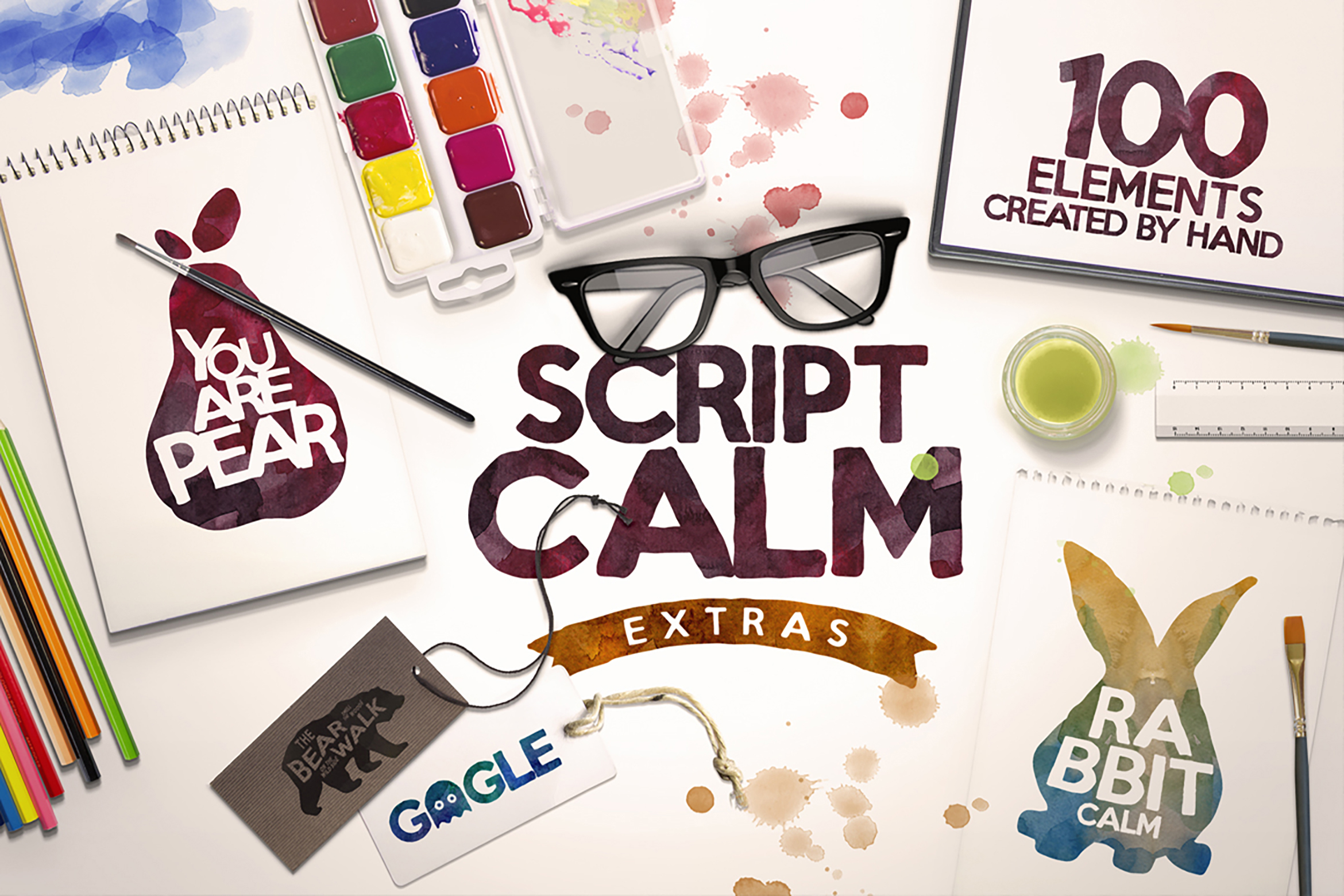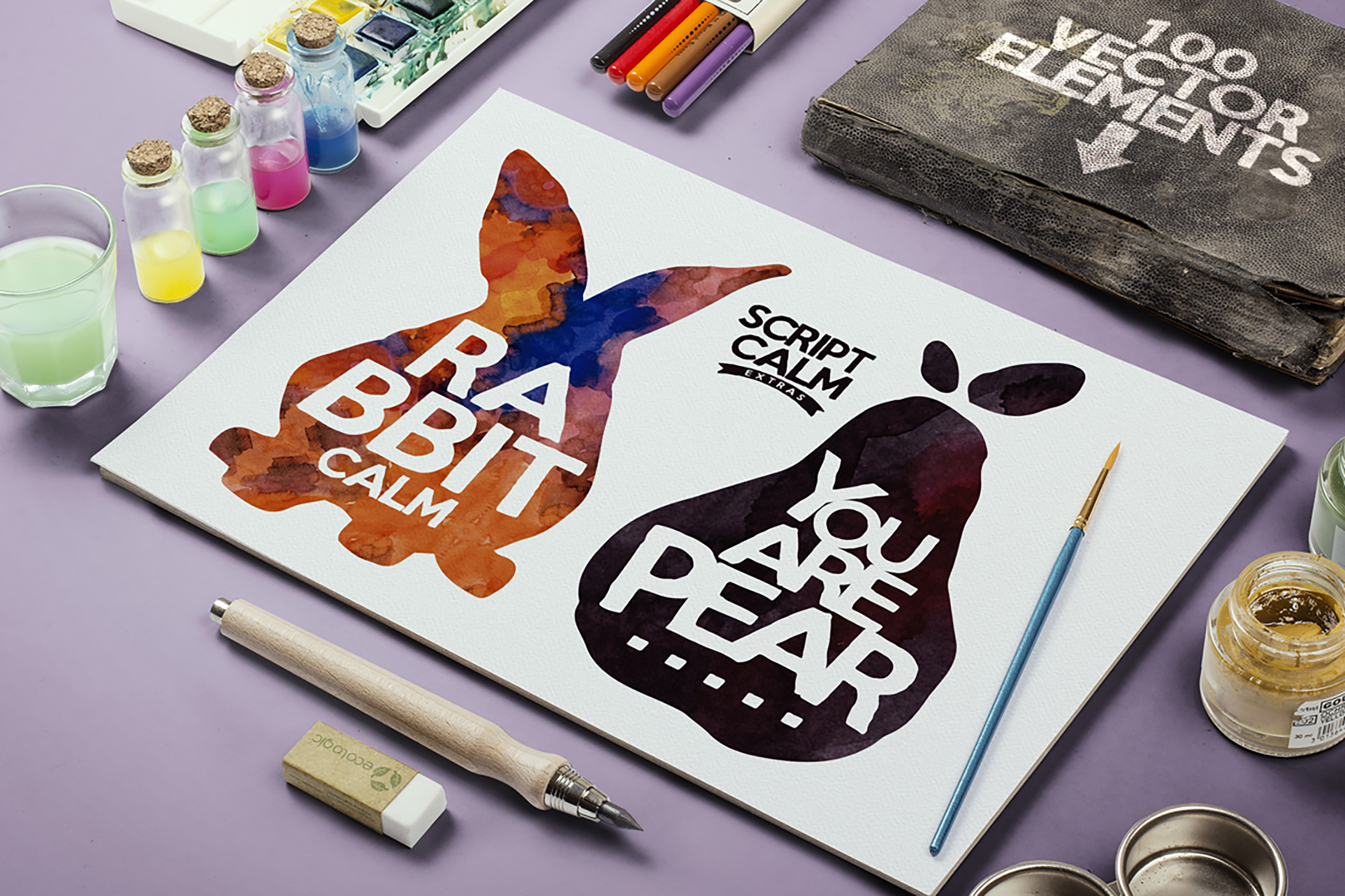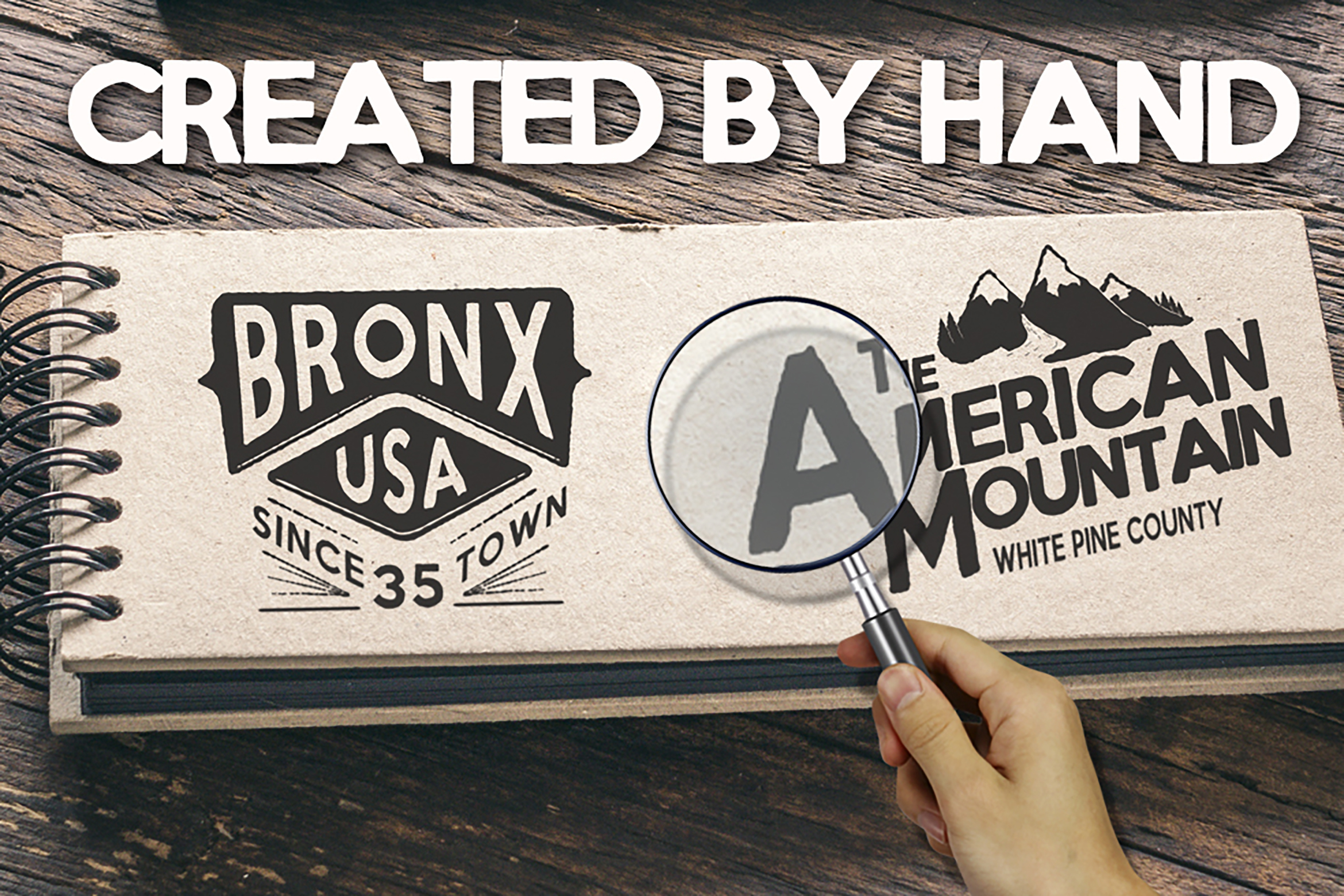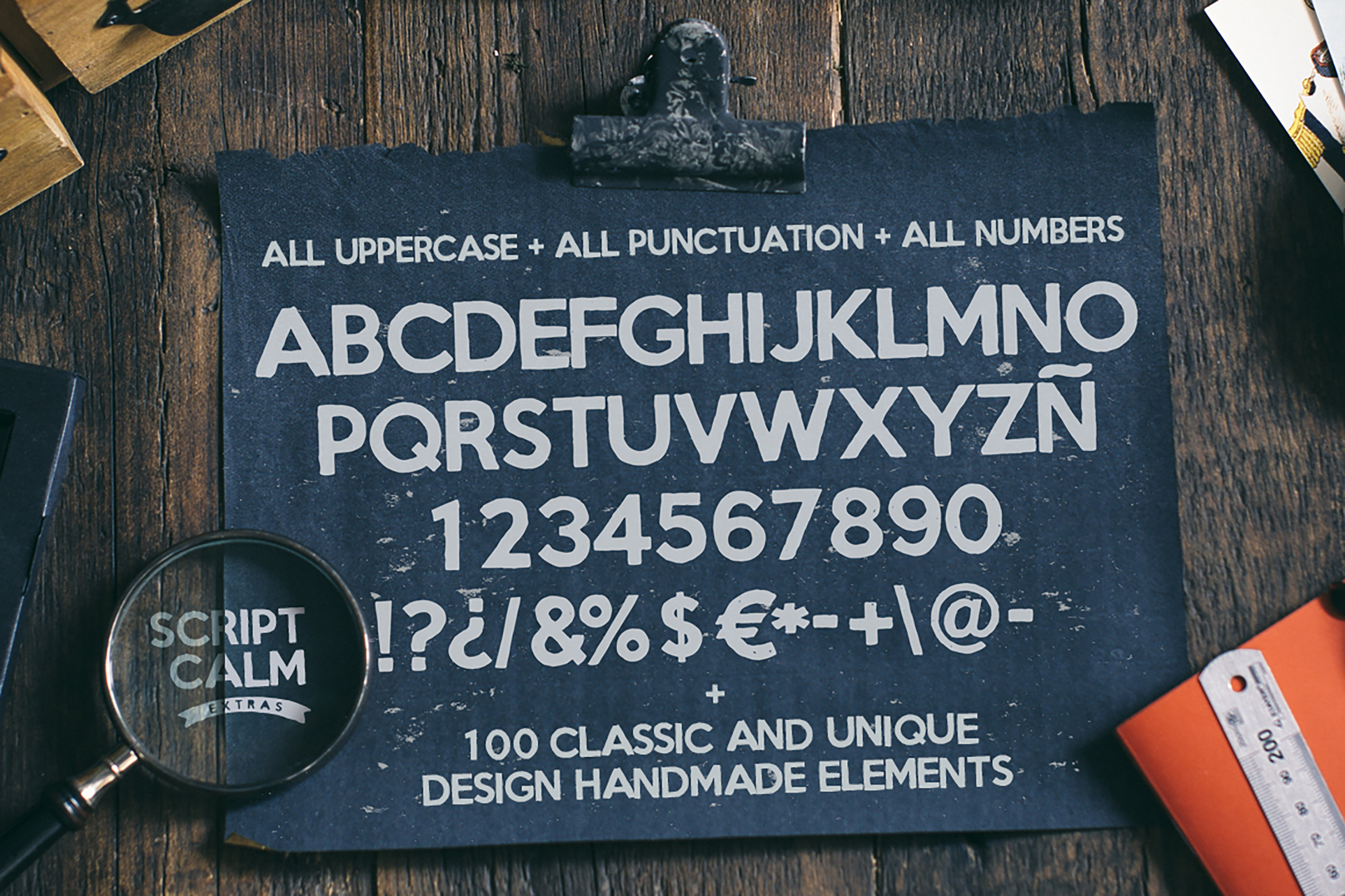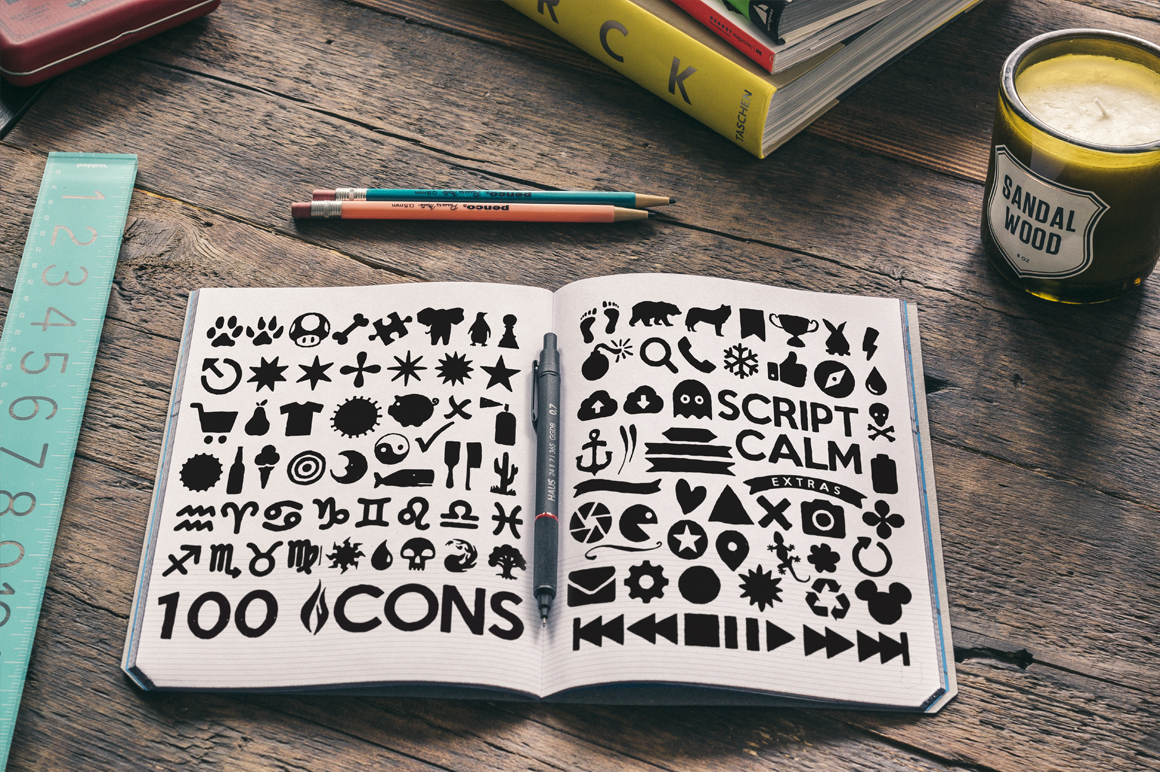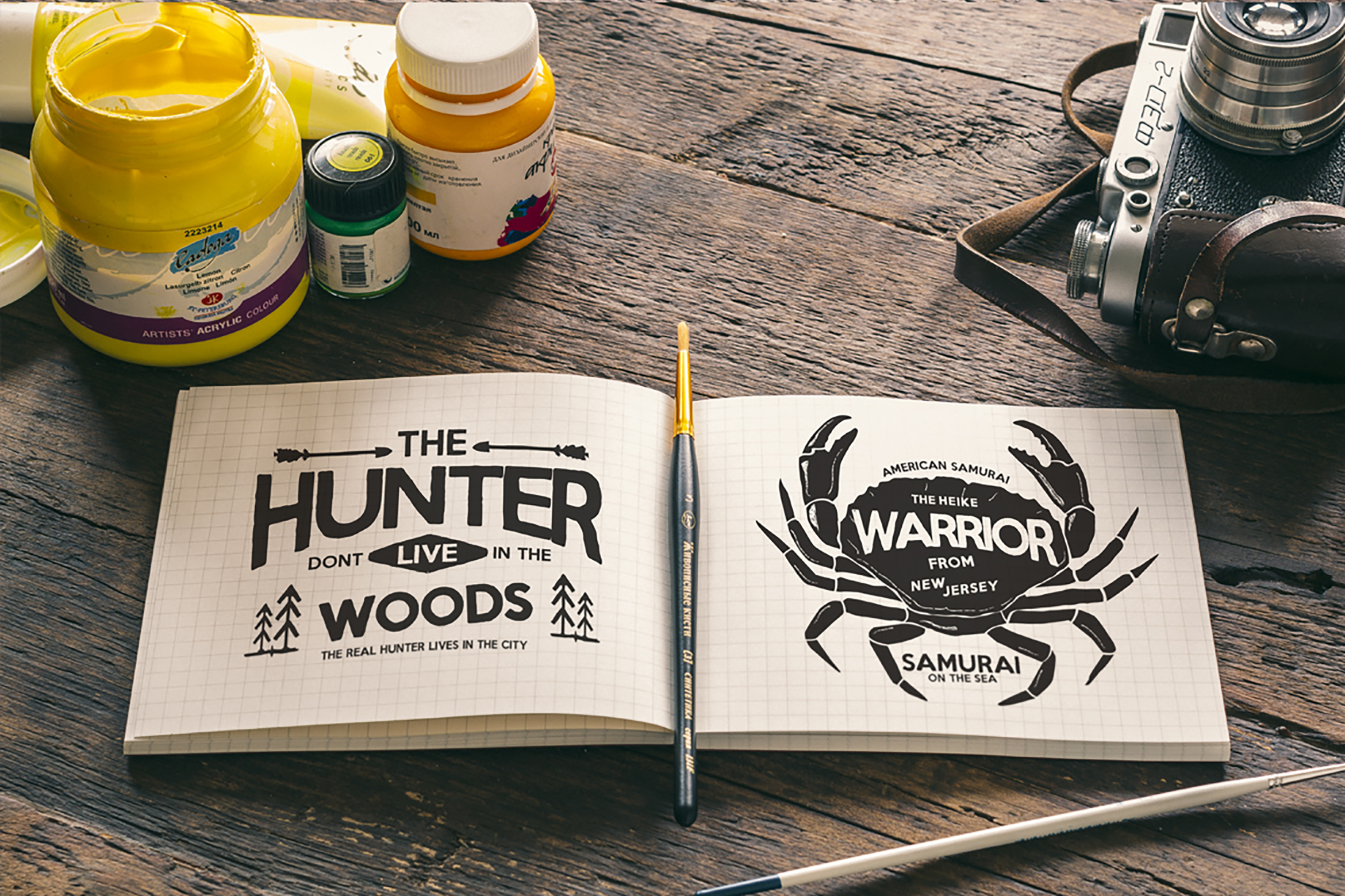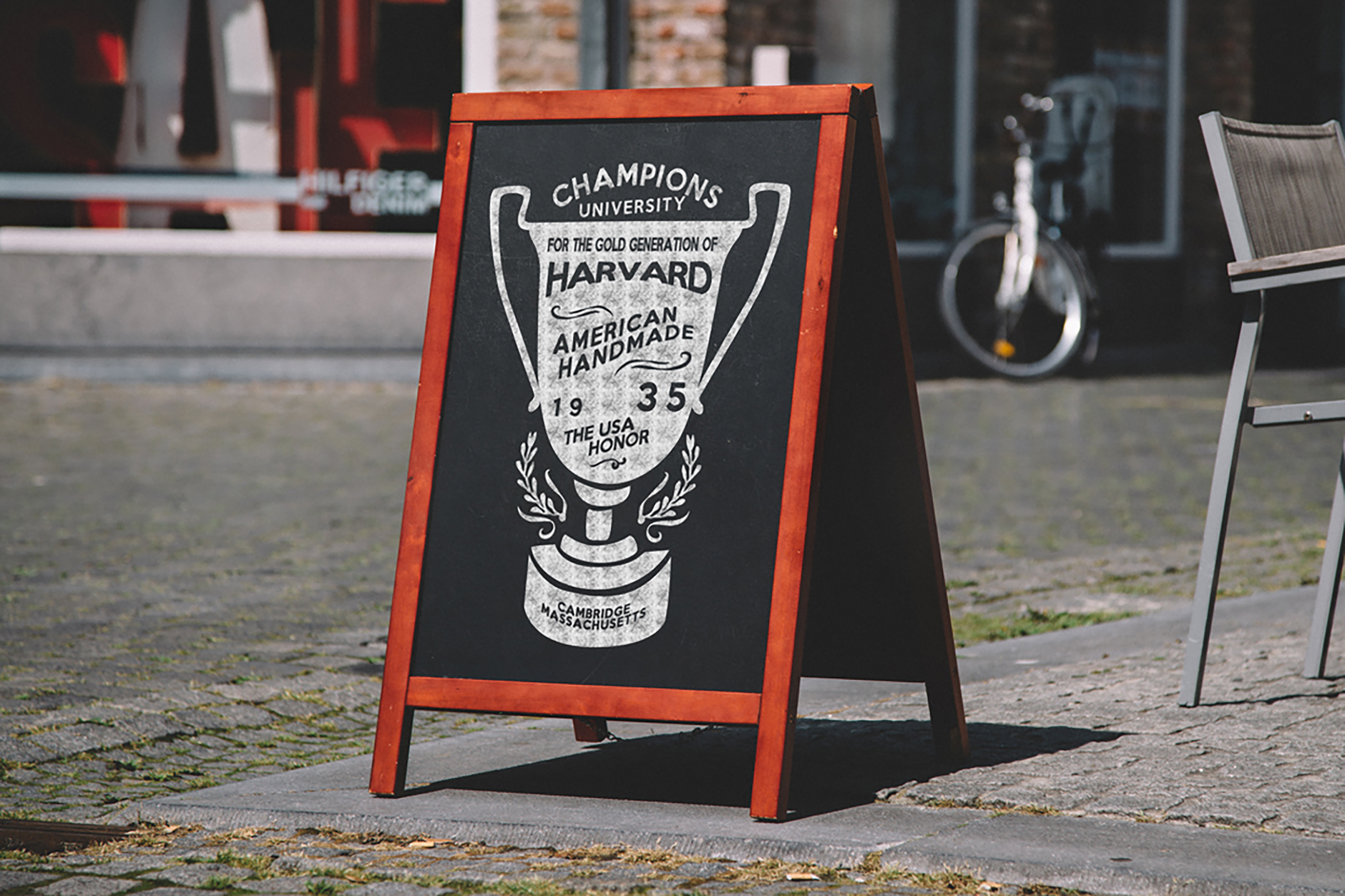
The Script Calm Family is a stylish playful family that offers loads of fun.
There are 6 matching fonts that work together great and will allow you to offer tremendous variation in your designs. The letters are very easy to read which makes this font suitable for both digital and print.
All uppercase. All punctuation. All numbers.